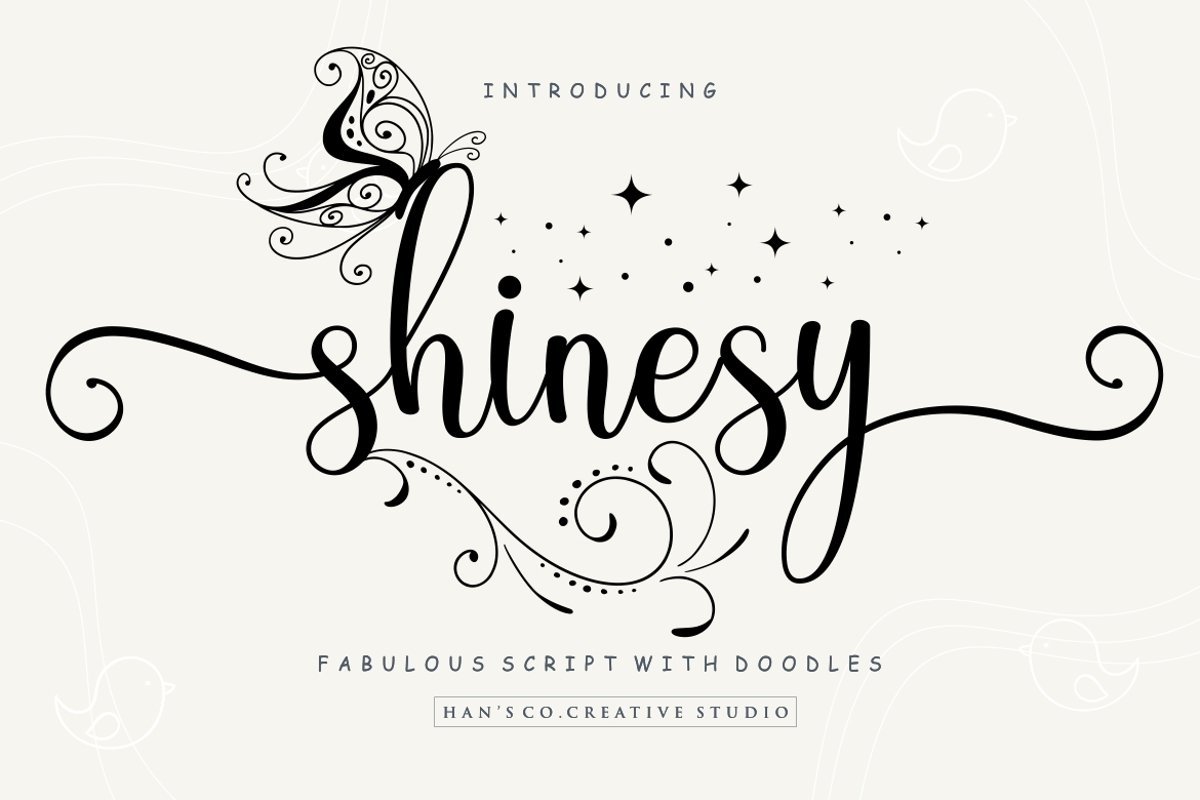
Shinesy example image 1
Shinesy is a script font with alternative swash characters in lowercase letters. There are also butterfly and flower doodle art with ornament themes to complement your project. let's create something amazing with this font!